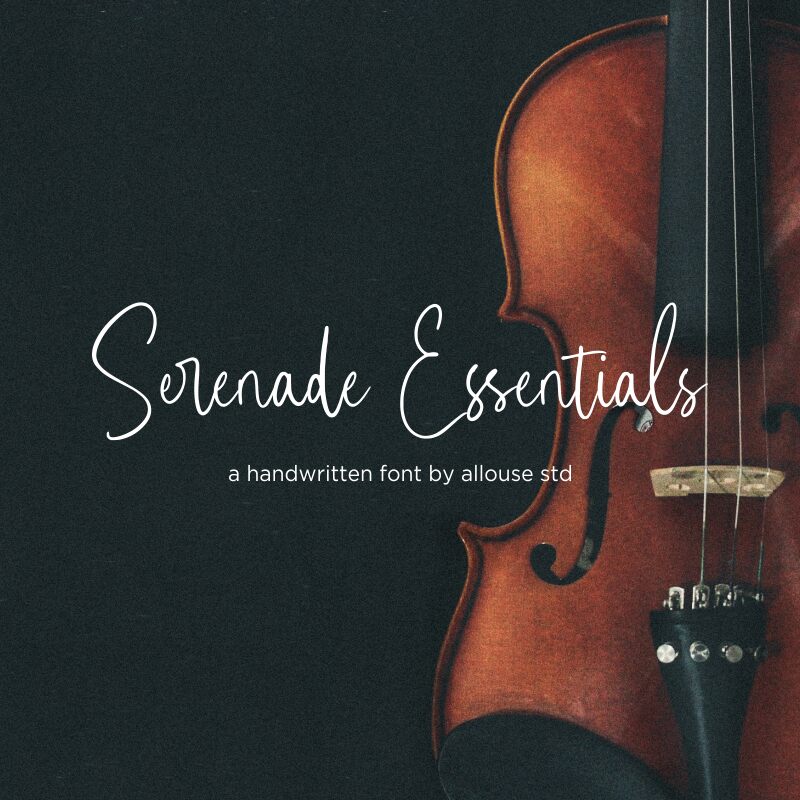
Serenade Essentials font by Allouse Studio is a free handwritten font that displays elegance with each and every letter. The brush pen strokes make for an artistic design, giving this font a personal and warm appearance. Expect to find natural fluidity inspired by handwriting itself; an expressive look that is modern and inviting.
Serenade Essentials can be useful in editorial designs that include magazines, posters, and book covers. It can also be useful for branding designs, fashion designs, advertising, and signage. The font will work perfectly fine with blogs, social media accounts, modern websites, and mobile applications as well.